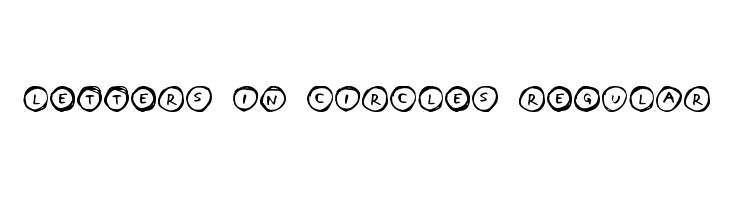
A playful, hand-drawn font with letters in imperfect circles, perfect for creative projects.
( Vladimir Nikolic - www.coroflot.com/vladimirnikolic )
A playful font with characters enclosed in hand-drawn circles, offering a whimsical and informal style.